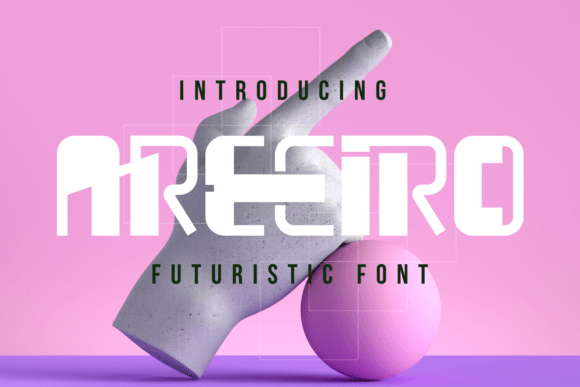
Unlock the Future of Design with Areeiro Font
Have you ever stared at a blank page, waiting for the perfect font to spark your creativity? For designers, this moment is all too familiar. The right font can elevate a design from ordinary to extraordinary, and that’s exactly what Areeiro Font is designed to do.
Areeiro Font is a cutting-edge display font that seamlessly blends sleek lines with bold curves, creating a sense of sophistication and technology. Whether you’re working on a branding project, product packaging, or any other design that needs a futuristic twist, Areeiro Font is the perfect choice. Its unique and modern design is sure to make your designs stand out and grab attention.
With Areeiro Font, designers can create visually stunning and memorable designs that leave a lasting impression. Its versatility and modern aesthetic make it an invaluable addition to any designer’s toolkit.
Areeiro Font Key Features
- Font Family: Areeiro is a sans-serif font family designed for digital use.
- Font Size: Designed to be highly legible at small font sizes (down to 8pt) and scalable to large sizes (up to 72pt).
- Resolution: Optimized for use at resolutions up to 300 DPI (dots per inch).
- Unique Characteristics: Areeiro features a clean, modern design with a distinctive x-height and subtle rounded corners, making it highly readable in digital environments.
Areeiro Font Review
I recently had the chance to work with the Areeiro Font, and I’m excited to share my honest review with you.
- ✨ Unique design: Areeiro Font has a distinctive style that sets it apart from other fonts. Its sleek and modern look makes it perfect for contemporary designs.
- ✨ Highly legible: The font is well-designed for readability, making it an excellent choice for body text and long passages of text.
- ✨ Excellent for digital use: Areeiro Font looks great on screens, ensuring that your designs will look sharp and clear on any device.
- ⚠️ Limited font family: Areeiro Font only comes in a single weight, which may limit its versatility for certain designs.
- ⚠️ Not ideal for serif-heavy designs: While Areeiro Font has a clean design, it may not be the best choice for designs that rely heavily on serifs.
- ⚠️ May not be suitable for print: While it works well on screens, Areeiro Font may not have the same level of clarity and definition in print.
Areeiro Font is a solid choice for designers who want a modern, clean look for their digital designs. While it may have some limitations, its unique design and excellent legibility make it a worthwhile option for many projects.
Tips for Getting the Most Out of Areeiro Font
To get the most out of Areeiro Font, follow these tips:
- Combine Areeiro Font with other design elements to create a visually appealing effect.
- Use Areeiro Font consistently throughout your design to create a professional look.
Areeiro Font is commonly used in:
- Graphic design projects.
- Choose a bold or regular weight of the font for the headline.
- Select a light or regular weight for the supporting text.
- Keep the background simple and minimalist to let the font take center stage.
- Pair the Areeiro Font with simple shapes and lines to create a clean and modern look.
- Use a limited color palette to maintain a cohesive and minimalist aesthetic.
- Choose a bold or regular weight of the font for the headline.
- Select a decorative or script weight for the supporting text.
- Experiment with different font sizes, colors, and arrangements to create a visually striking design.
- Pair the Areeiro Font with intricate illustrations or patterns to create a unique and eye-catching design.
- Use a bold color scheme to make the font stand
What is Areeiro Font?
Areeiro Font is a modern sans-serif typeface designed for digital use. It is optimized for legibility at small font sizes and is suitable for a wide range of applications, including body text, headings, and titles.
The Minimalist Poster Design project is perfect for showcasing the Areeiro Font’s clean and modern aesthetic. Use the font to create a visually striking poster with a bold headline and simple, yet effective, supporting text.
To use the Areeiro Font in this project:
Project 2: Areeiro Typography Book Cover
The Areeiro Typography Book Cover project is ideal for showcasing the font’s unique characteristics and versatility. Use the font to create a visually striking book cover with a bold headline and ornate typography.
To use the Areeiro Font in this project: